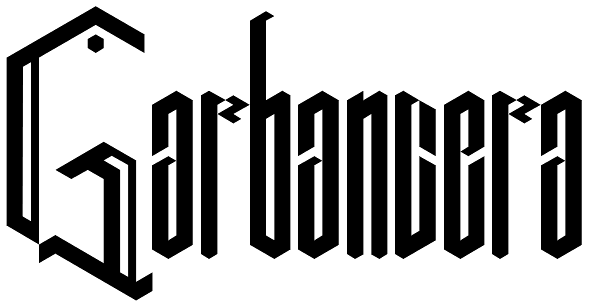
Garbancera
Gothic fraktur inspired design, I wanted to resemble old german calligraphy but making it very geometric, so I used an isometric reticle during sketching. This is a display font, created for BIG sizes, non textual. I recommend it for branding...